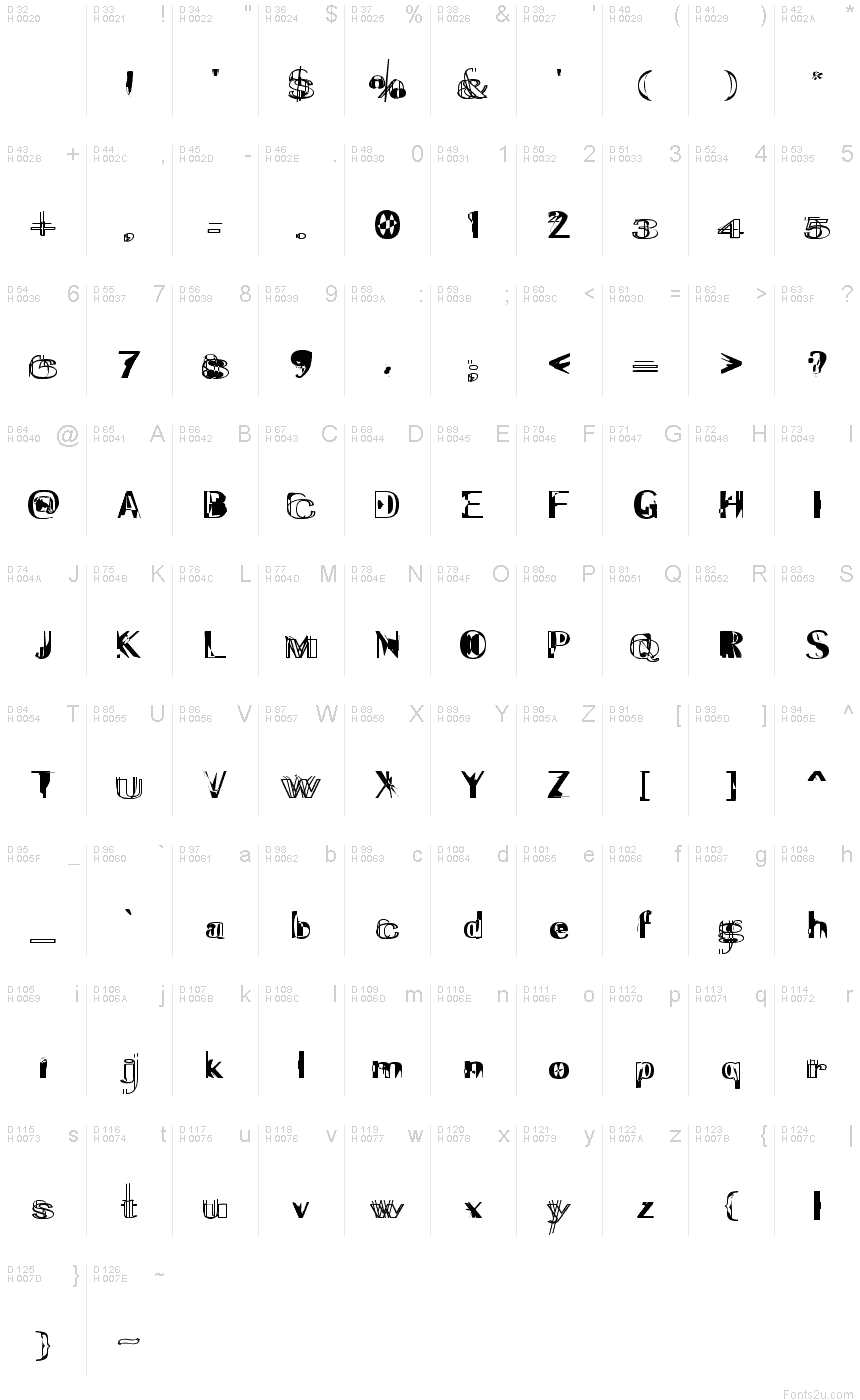
Experitypo5
Experitypo 5 font by Intellecta Design is a free distorted display typeface that looks like letters shattered and reassembled from mismatched pieces. Chunky black shapes slam into skinny stems, rough edges scrape against crisp curves, and gaps create a jittery rhythm that feels raw and improvised. It’s loud, unruly, and instantly grabs attention, like a photocopied collage pushed a little too far through the machine.
Using Experitypo 5, your titles don’t just speak—they glitch and crackle on the page. This free font shines on experimental posters, album covers, underground zines, horror or glitch-art graphics, and edgy event flyers. Keep it big and bold for short words, and pair it with a simple geometric sans for body text to keep the chaos readable.